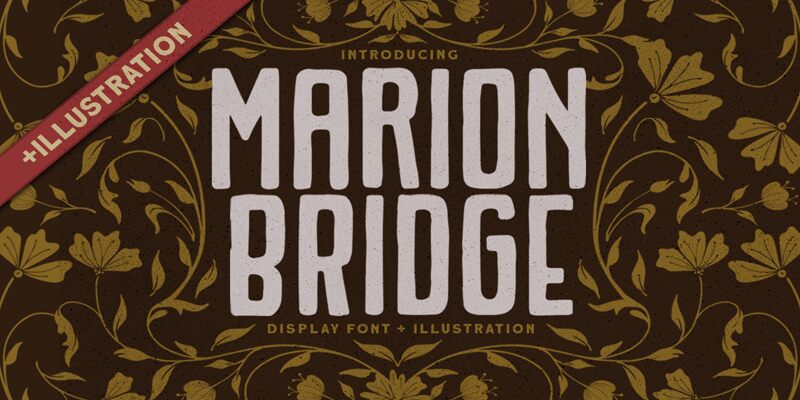
Marion Bridge font by Letterhend Studio is a retro-style, condensed font that captures the essence of a classic bygone era. With narrow, tall letterforms, this display typeface embraces a vintage appeal suitable for delivering nostalgic atmospheres in professional projects.
This free display font works well with posters, films title designs, movies & series interiors design. It also looks gorgeous on gaming channel graphics (Twitch for instance), children related project designs or audiobooks covers; as well as personal purposes such as scrapbooks, photo albums and diary writing.